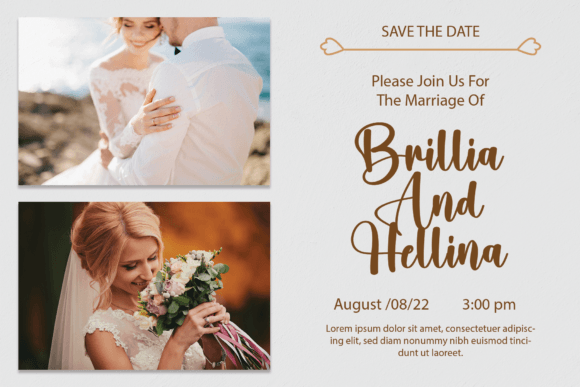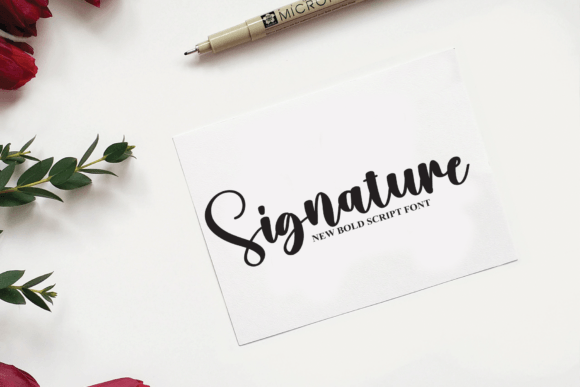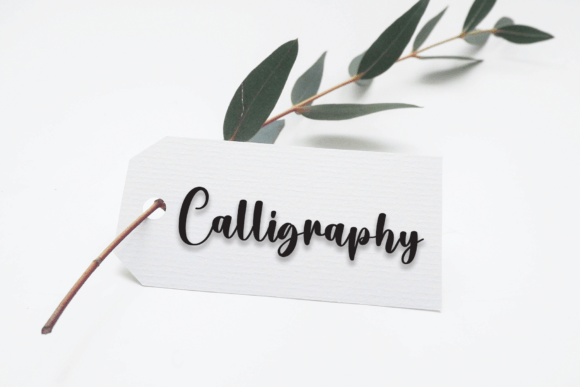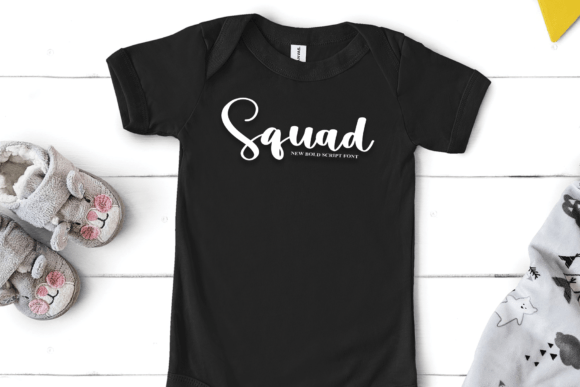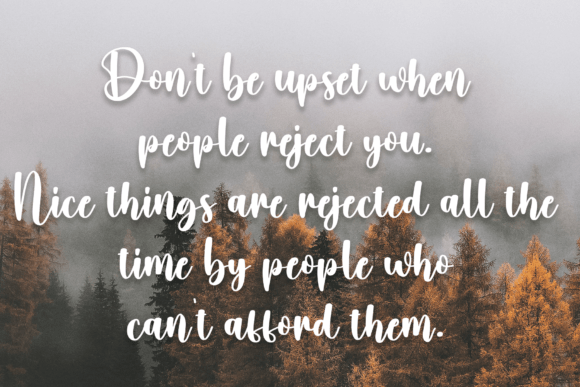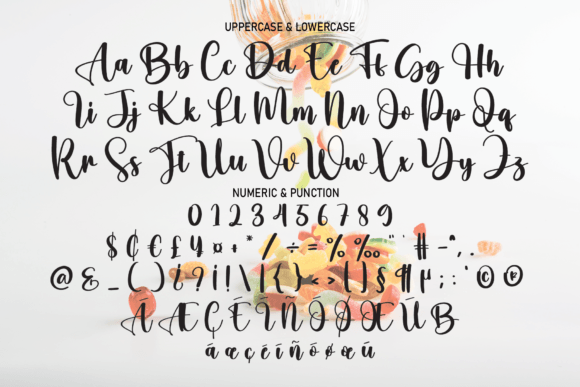
Candy Font: The Sweetest Addition to Your Design Projects
Are you looking for a font that adds a touch of whimsy and playfulness to your design projects? Look no further than Candy Font! This delightful font is perfect for a wide range of applications, from wall displays and wedding invitations to social media post logos and product packaging.
What is Candy Font?
Candy Font is a modern, handwritten font that features sweet and stylish letters. Its unique design makes it perfect for adding a personal touch to any project. The font is highly versatile and can be used for both personal and commercial projects.
Candy’s Latest Style Letters
Candy’s latest style letters are the perfect addition to any design project. The font features a range of letters, numbers, and punctuation marks that are designed to look like they were written by hand. The letters are playful, yet elegant, making them perfect for a wide range of applications.
Candy Font is perfect for a wide range of applications, including:
- Wall displays: Add a touch of personality to your wall displays with Candy Font.
- Wedding invitations: Make your wedding invitations stand out with this beautiful, handwritten font.
- Social media post logos: Add a personal touch to your social media post logos with Candy Font.
- Advertisements: Use Candy Font to add a touch of whimsy to your advertisements.
- Product packaging: Make your product packaging stand out with this unique font.
- Product designs: Add a personal touch to your product designs with Candy Font.
- Labels: Use Candy Font to create custom labels for your products.
- Photography: Add a watermark to your photos with Candy Font for a personal touch.
- Invitations: Use Candy Font to create custom invitations for any occasion.
- Stationery: Add a touch of personality to your stationery with Candy Font.
Why Choose Candy Font?
There are many reasons to choose Candy Font for your design projects. Here are a few:
- Unique design: Candy Font features a unique, handwritten design that will make your projects stand out.
- Highly versatile: The font is highly versatile and can be used for both personal and commercial projects.
Tips for Using Candy Font
Here are a few tips for using Candy Font in your design projects:
- Use it sparingly: While Candy Font is a beautiful font, it can be overwhelming if used too much. Use it sparingly to add a touch of personality to your projects.
- Pair it with other fonts: Candy Font pairs well with other fonts, such as sans serif fonts. Experiment with different font combinations to find the perfect look for your project.
- Experiment with colors: Candy Font looks great in a variety of colors. Experiment with different colors to find the perfect look for your project.
Candy Font is a beautiful, handwritten font that is perfect for a wide range of design projects. Its unique design and highly versatile nature make it a great addition to any project. Whether you’re a designer or a crafter, Candy Font is a great choice for adding a touch of personality to your projects.